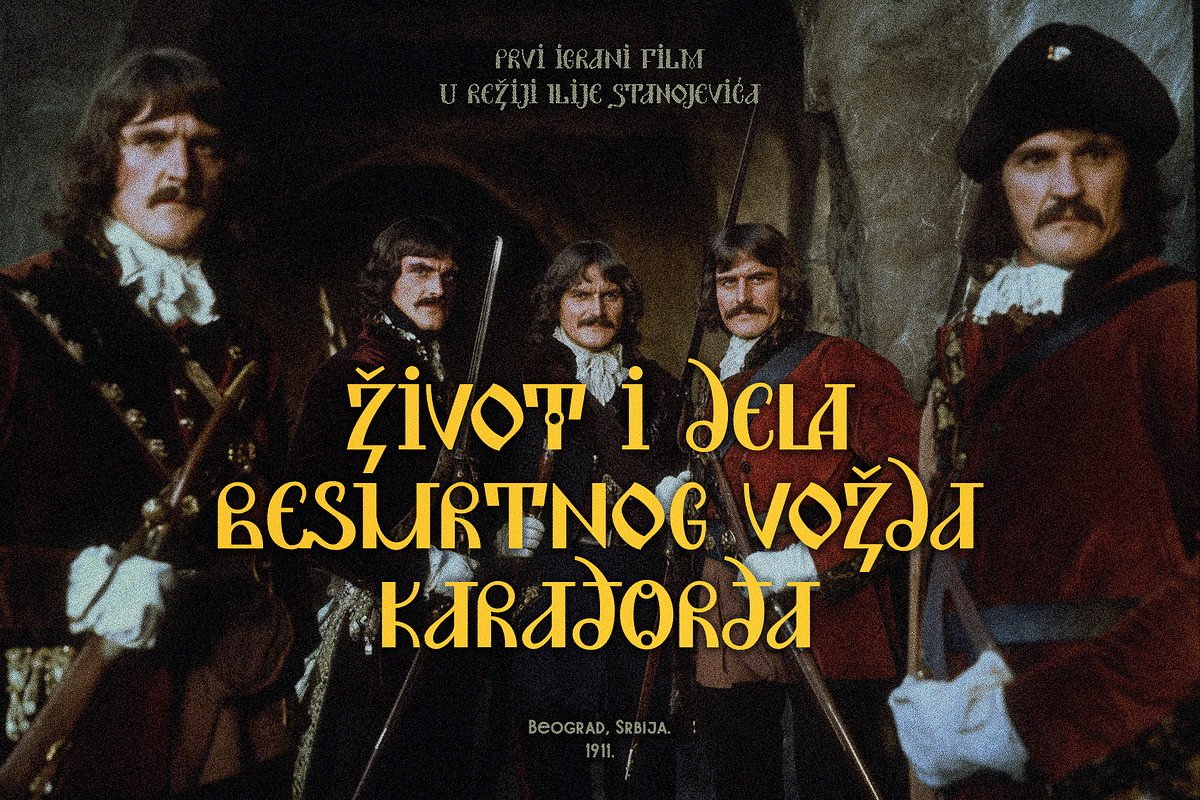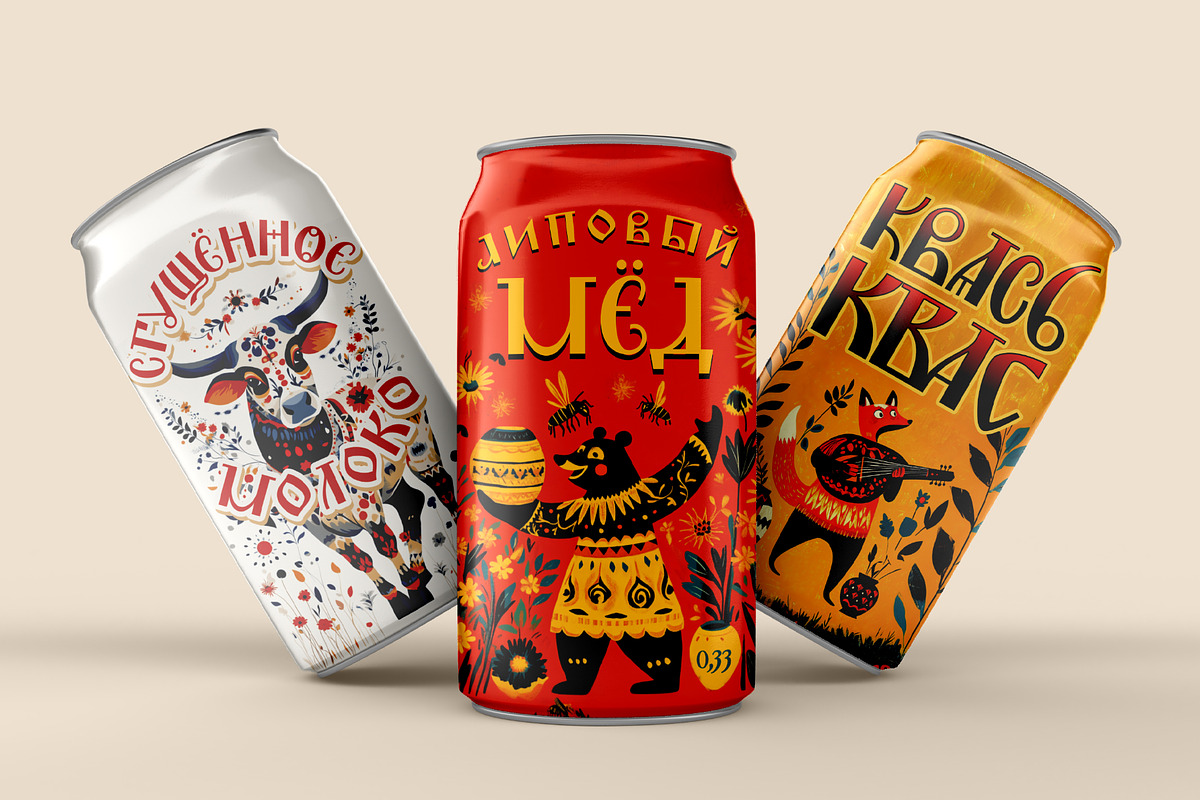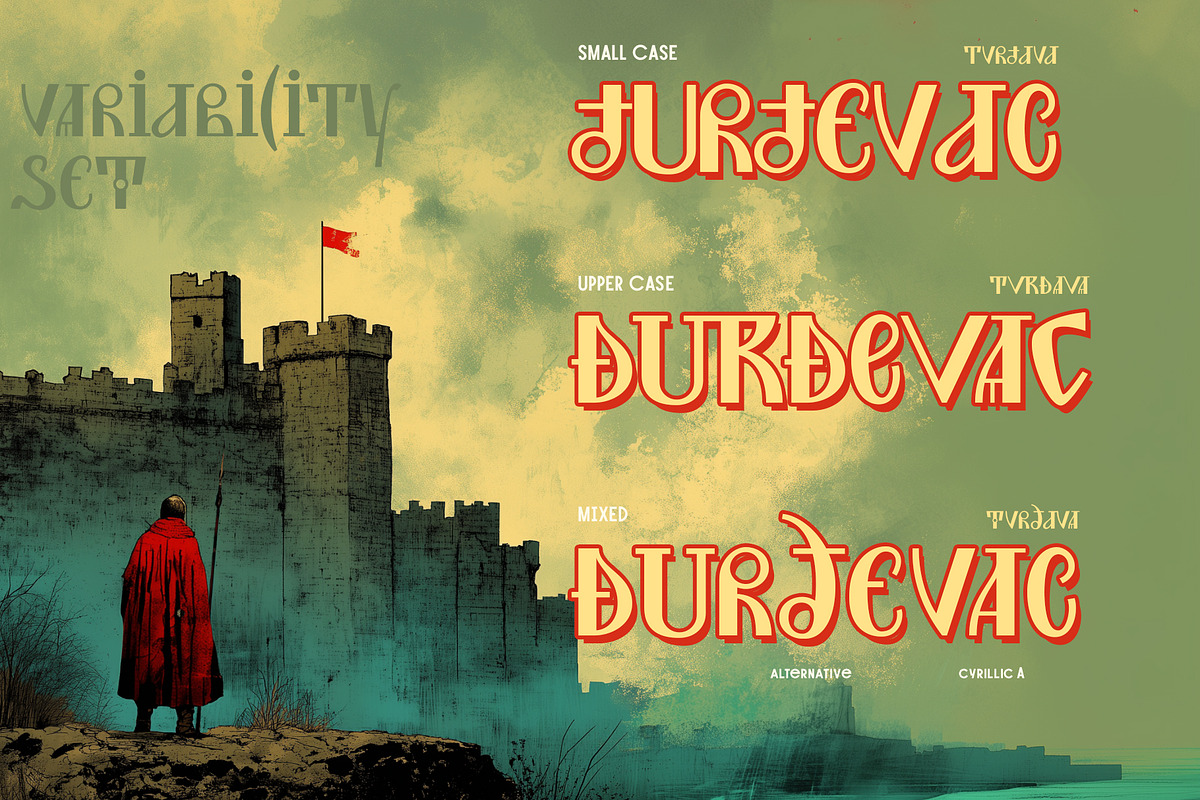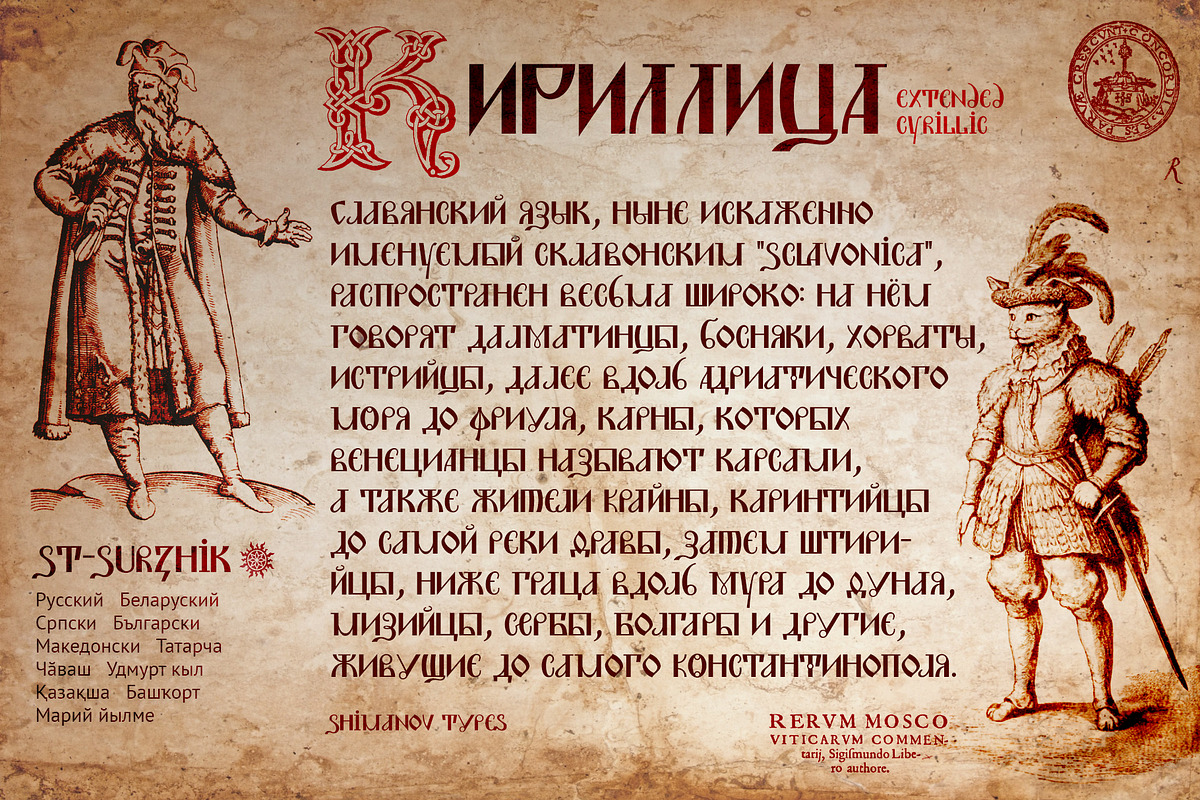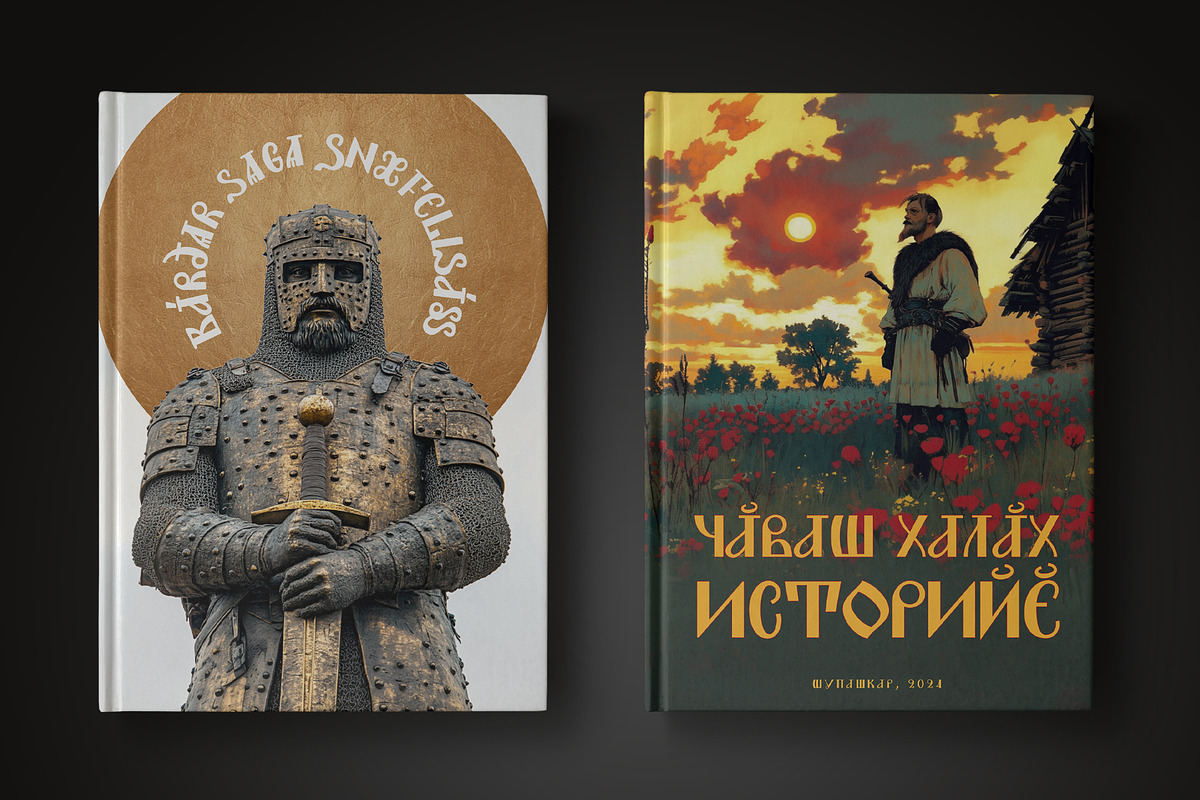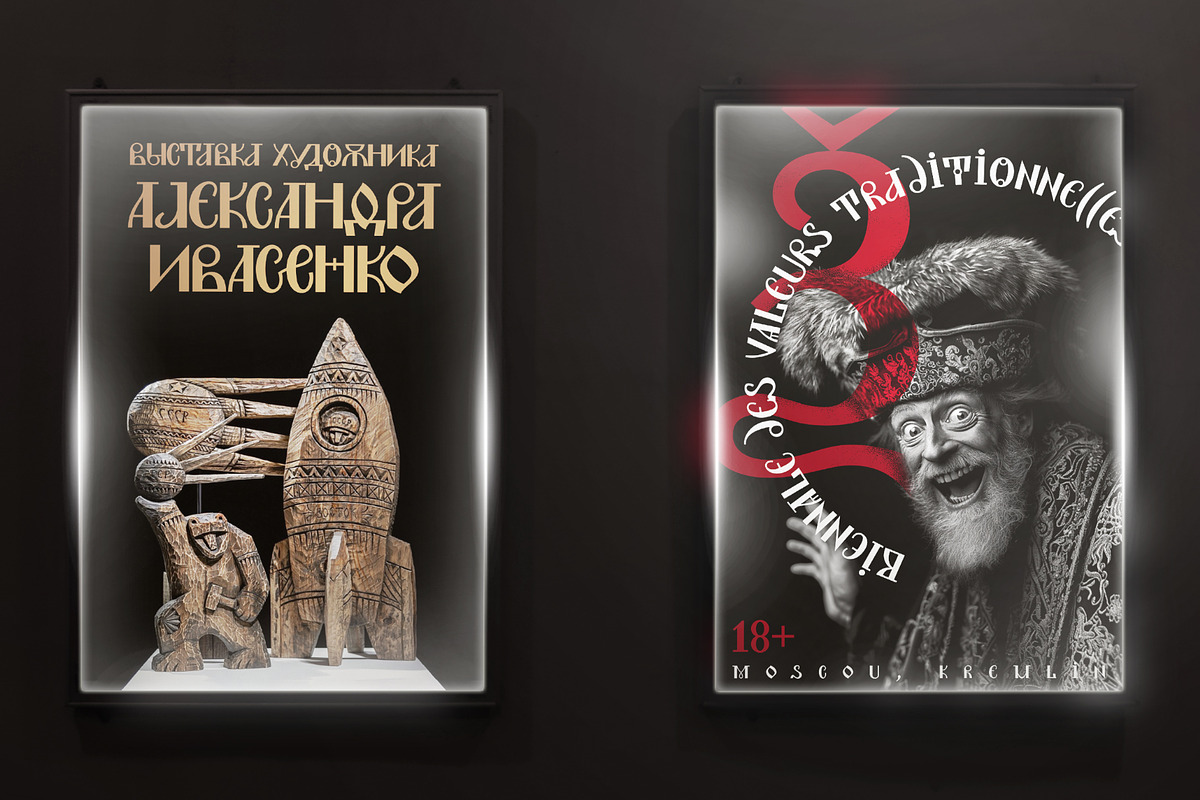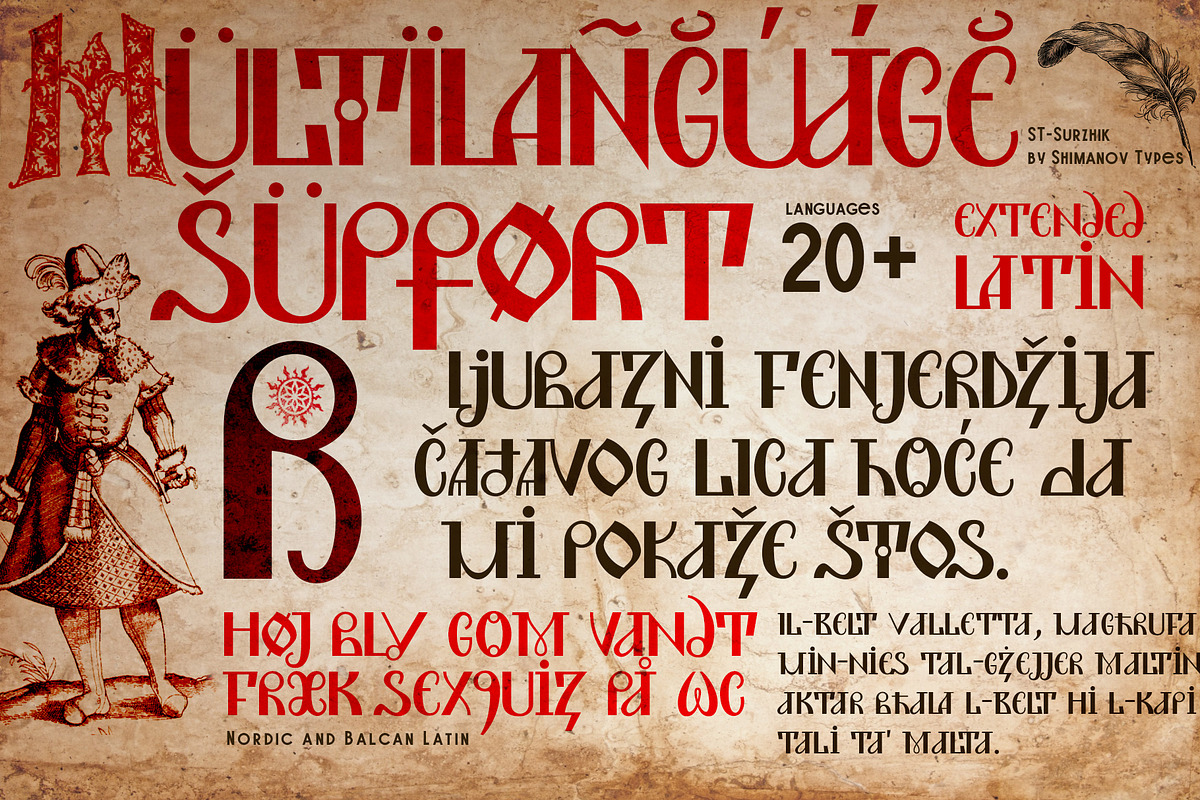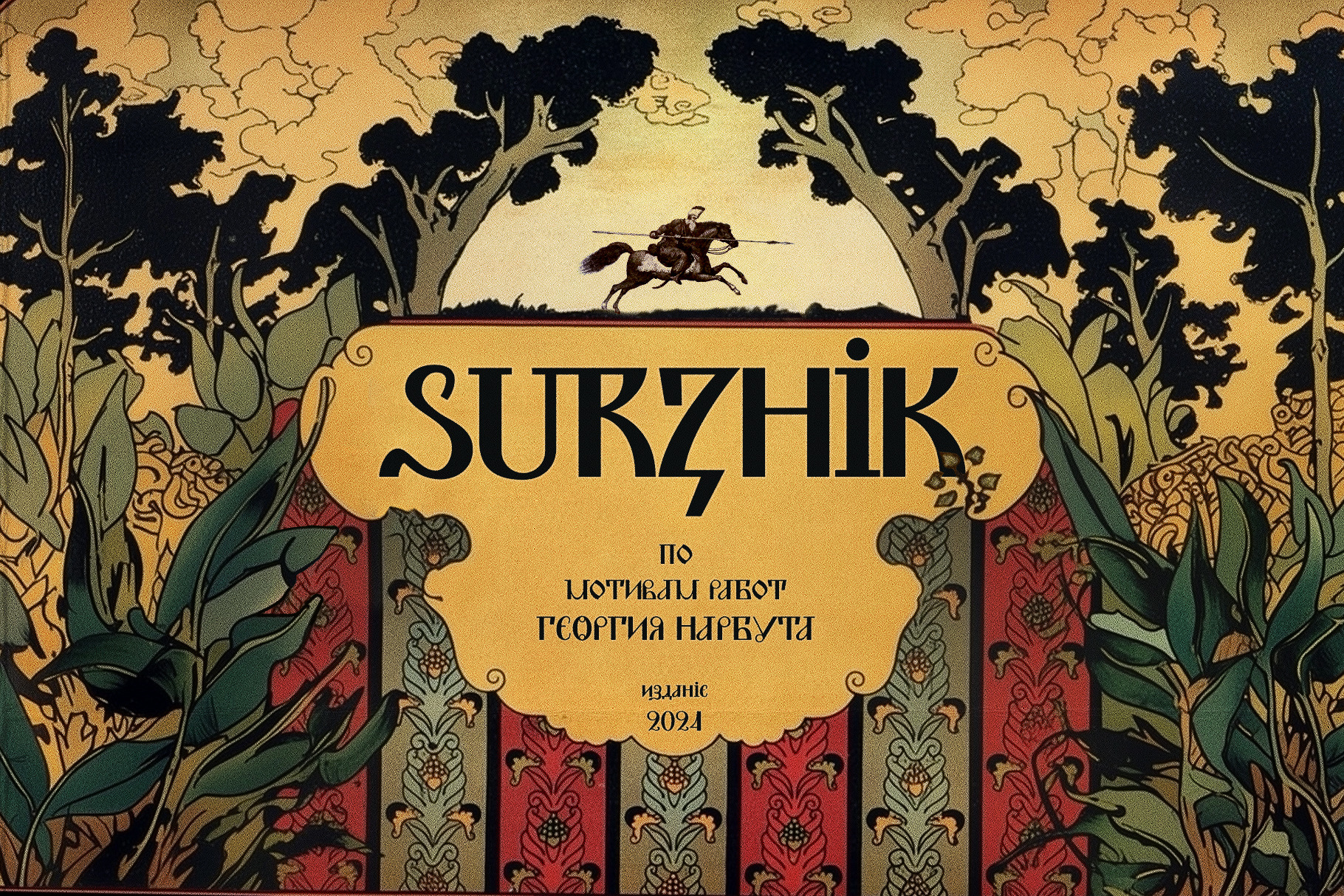
ST-Surzhik medieval font
ST-Surzhik font was created based on the work of the great Russian artist and type designer Georgy Narbut. The name reflects the idea of mixing different styles of forms invented by Narbut - in the letters you can see the old Cyrillic alphabet, the round Glagolitic alphabet, the early Peter the Great civil font and influence of Art Nouveau.
The font has a "fairytale" character, a touch of retro romanticism. It can be used in identity, book and magazine design, moviess and cartoons.
The set of "lowercase" and "uppercase" - letters of the same size, and represent stylistic sets. They can be mixed, alternated, to give more individuality to the text.
Not recommended for use in typing large amounts of text.
Extended Latin and Cyrillic. Numerals. Basic punctuation.